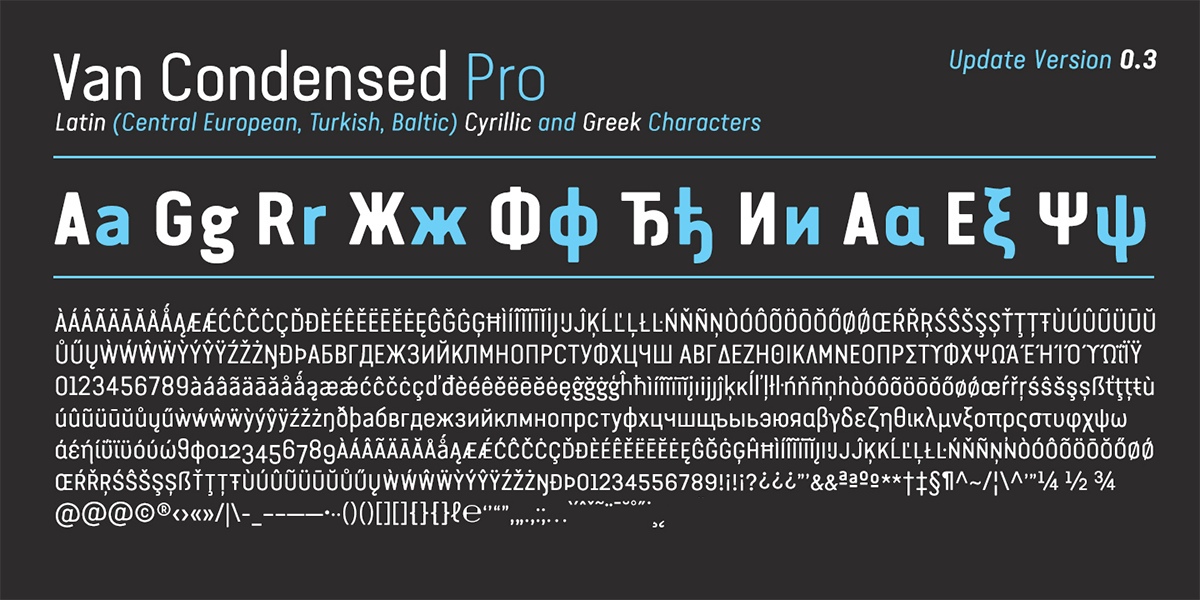
Van Condensed Pro Font
Van Condensed Pro Font is perfect for transportation company branding, logistics service communications, urban mobility campaigns, delivery service marketing, fleet management materials, automotive industry presentations, space-efficient signage systems, and modern transit branding.
What makes Van Condensed Pro Font exciting is its efficiently compact character that maximizes communication impact while minimizing space requirements through professionally condensed letterforms that seem engineered for optimal performance in tight quarters. The font features streamlined proportions with transportation-inspired details that reflect the practical efficiency and reliable functionality essential to modern logistics and urban mobility solutions. Its space-efficient aesthetic and professional reliability make it perfect for organizations that need to communicate maximum information in minimal space while maintaining excellent readability and professional credibility across all transportation and logistics applications.
Van Condensed Pro Font family includes comprehensive condensed weights ranging from Ultra Light to Black, typically featuring Light, Regular, Medium, Bold, and Heavy variations with corresponding italic styles. The family often includes transportation-specific character sets, logistics symbols, and space-optimized features that provide maximum flexibility for efficient communication in space-constrained environments requiring professional presentation and excellent legibility.